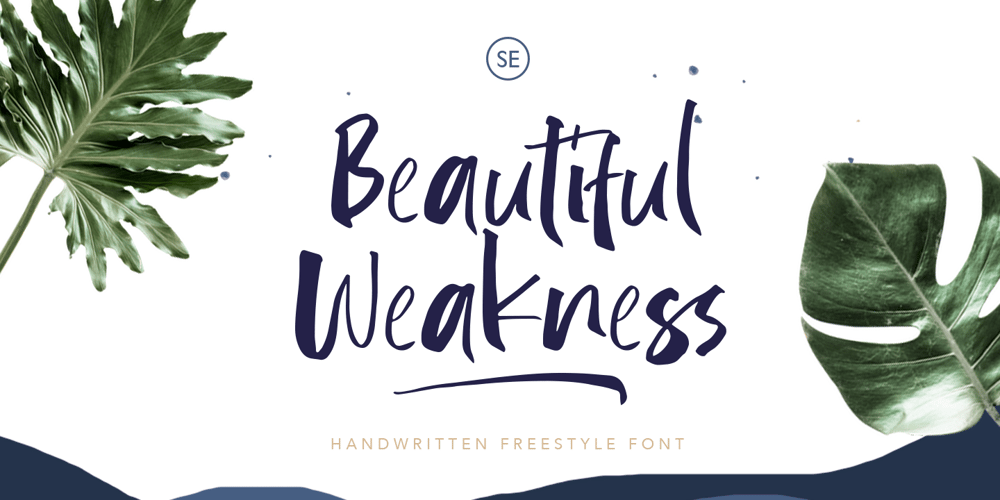
Beautifull Weakness Font Family was designed by Sarid Ezra and published by Sarid Ezra. Beautifull Weakness contains 1 styles and family package options. Beautiful Weakness is a free-styled handwritten font that will make all your project more unique. With brush touch, this font will make your artwork feels more natural. Comes with ligatures and underline that you can access it from opentype feature. Also support multi language!